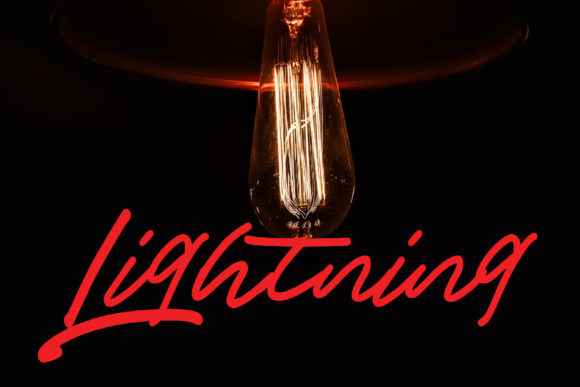
About Lightning Font
Introducing Lightning, the casual and fun handwritten font crafted with a brush pen. Its clean yet quirky style makes it the perfect match for all your design needs, from logos and branding to social media graphics and crafty DIY projects.
With its lively strokes and playful curves, Lightning brings a sense of energy and excitement to your creations. The brush pen’s fluidity and spontaneity shine through, adding a touch of authenticity to your designs. Whether you’re aiming for a laid-back vibe or a vibrant burst of creativity, Lightning has got you covered.
Use Lightning to create eye-catching logos that capture the essence of your brand. Its friendly and approachable demeanor will make your audience feel right at home. Incorporate it into your branding materials, and watch as your message resonates with authenticity and charm.
Bring Lightning to your social media posts, and instantly elevate your online presence. Its casual yet professional appearance will make your content stand out, encouraging engagement and building a loyal following.
For your crafty DIY projects, Lightning is an ideal choice. Add it to handmade cards, posters, or invitations to infuse your creations with a sense of handmade warmth. Its versatility extends to various crafting materials, making it a go-to font for all your creative endeavors.
Unleash your imagination with Lightning and let your designs spark with creativity. The handwritten charm of this font will ignite a sense of joy and playfulness, making every project a delightful experience.
In a world where uniqueness is celebrated, Lightning shines as a refreshing and expressive handwritten font. So, embrace the fun and casual spirit of Lightning, and let your designs light up with creativity and personality.